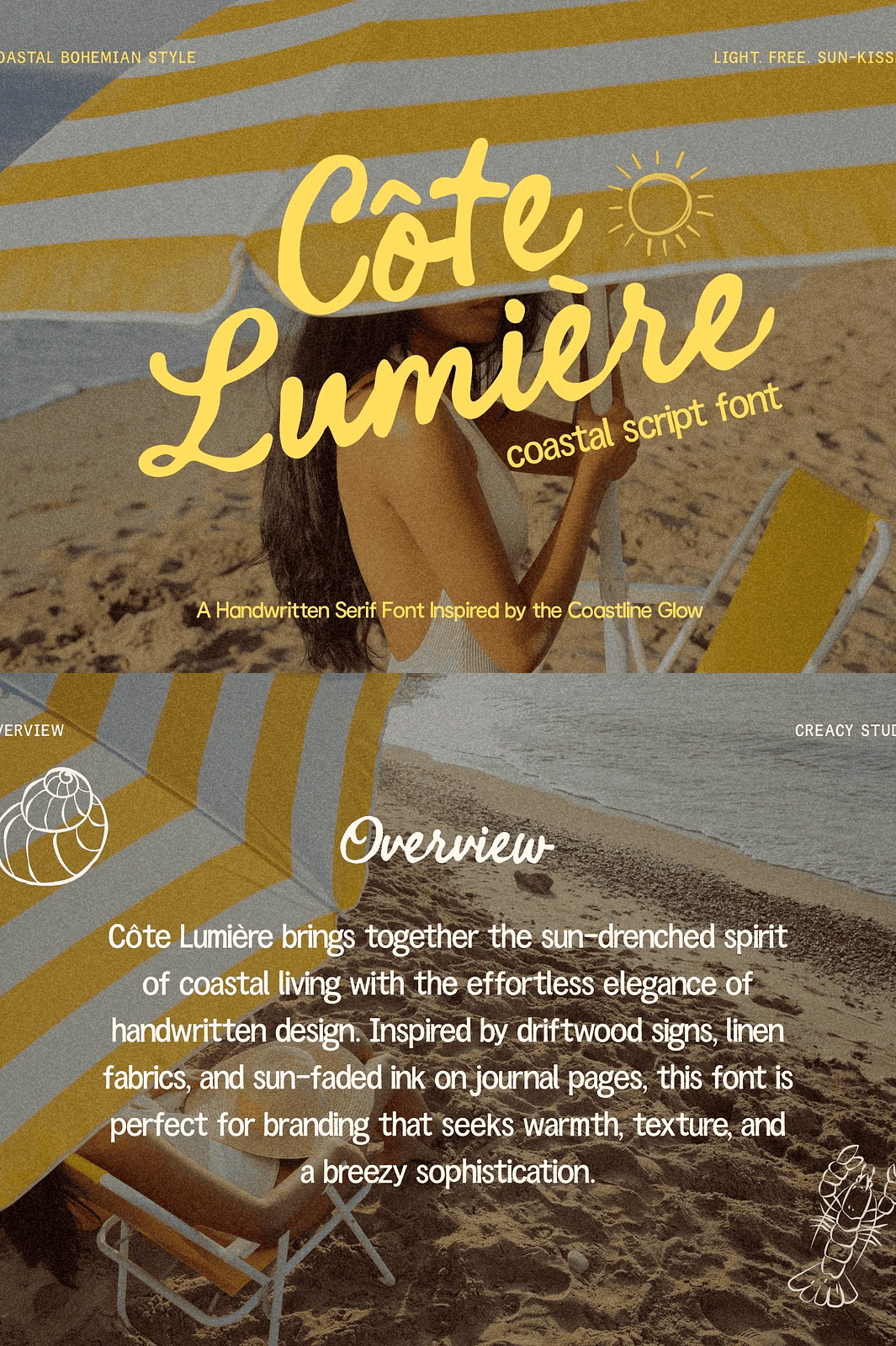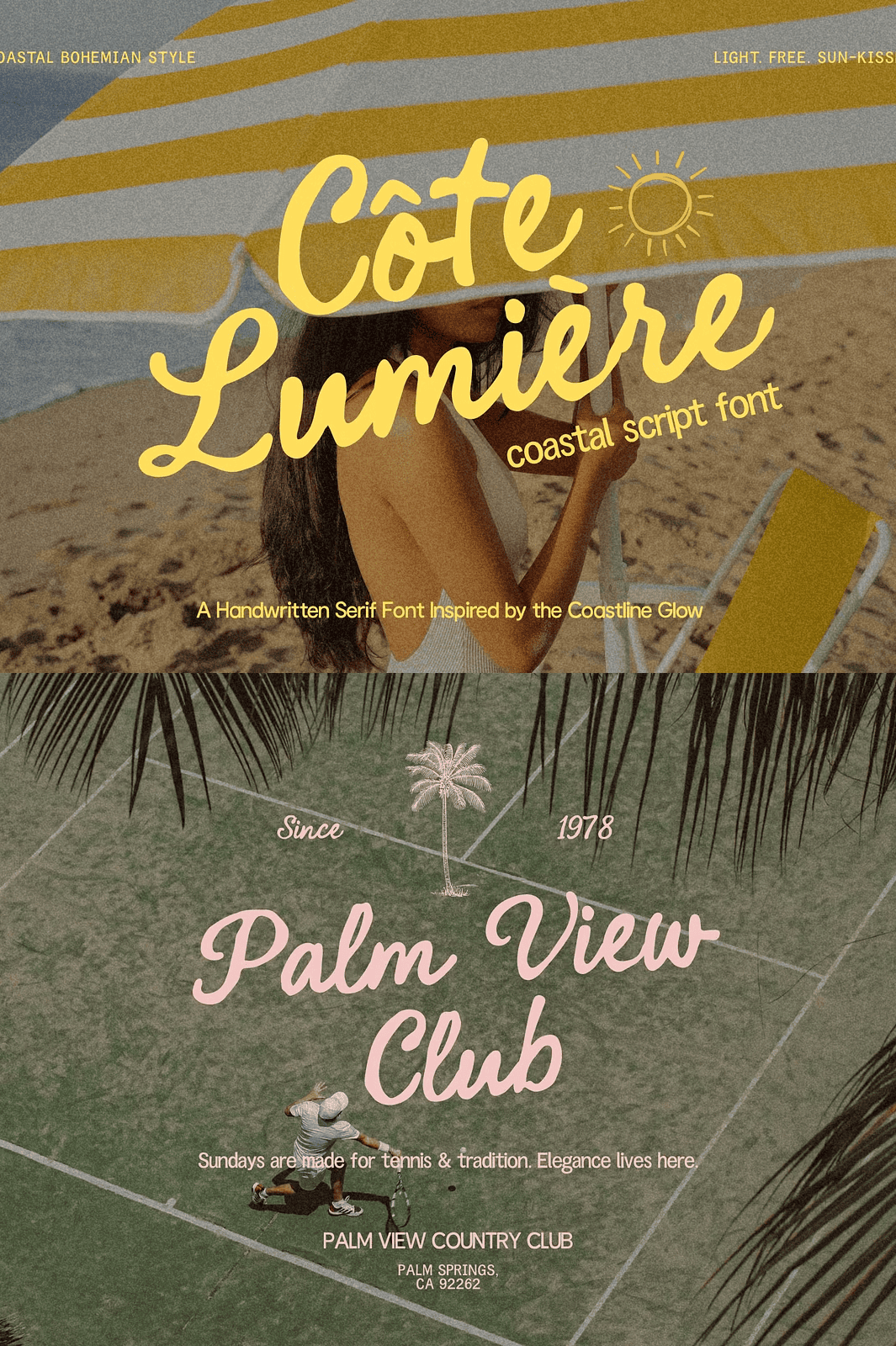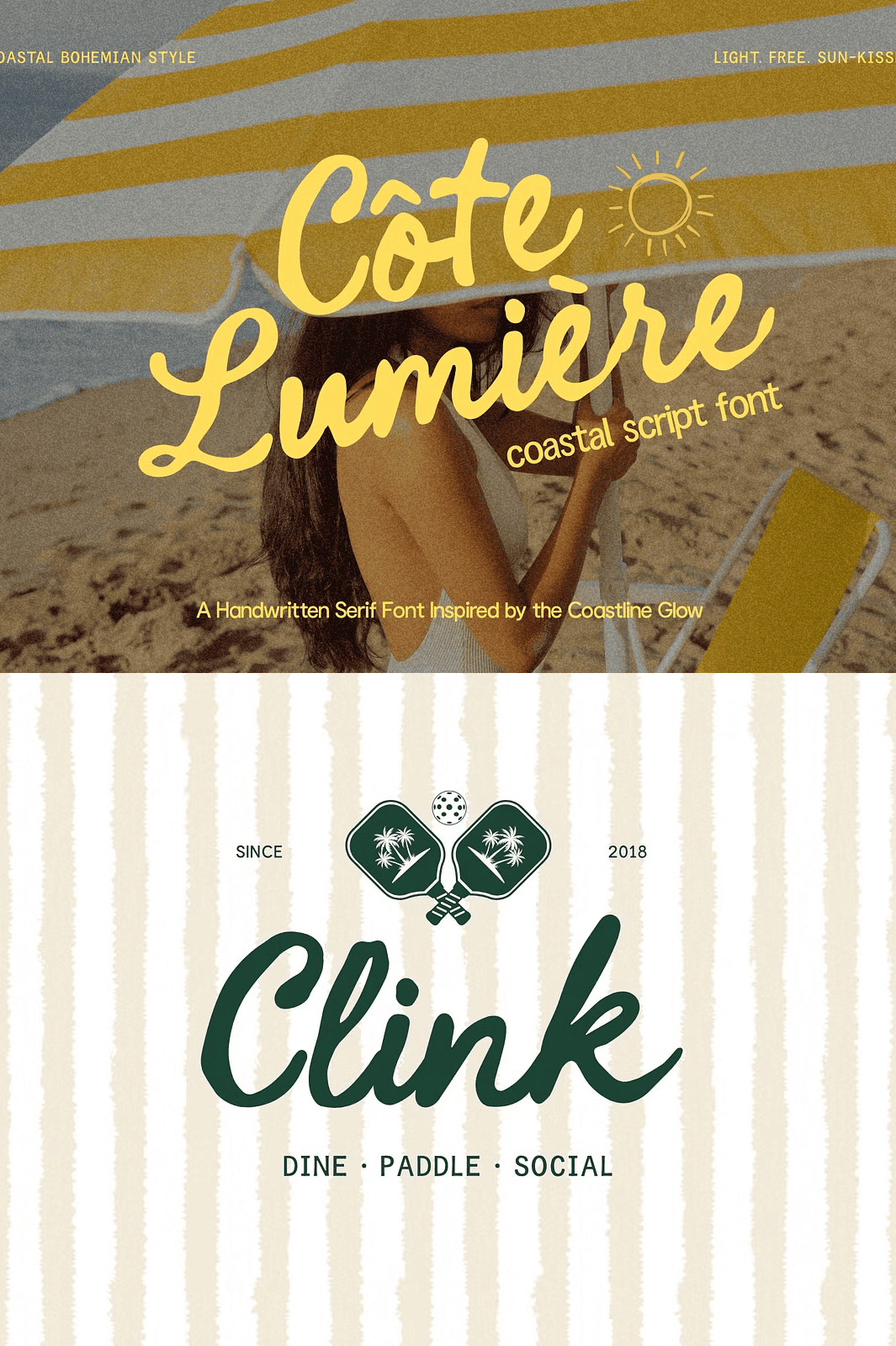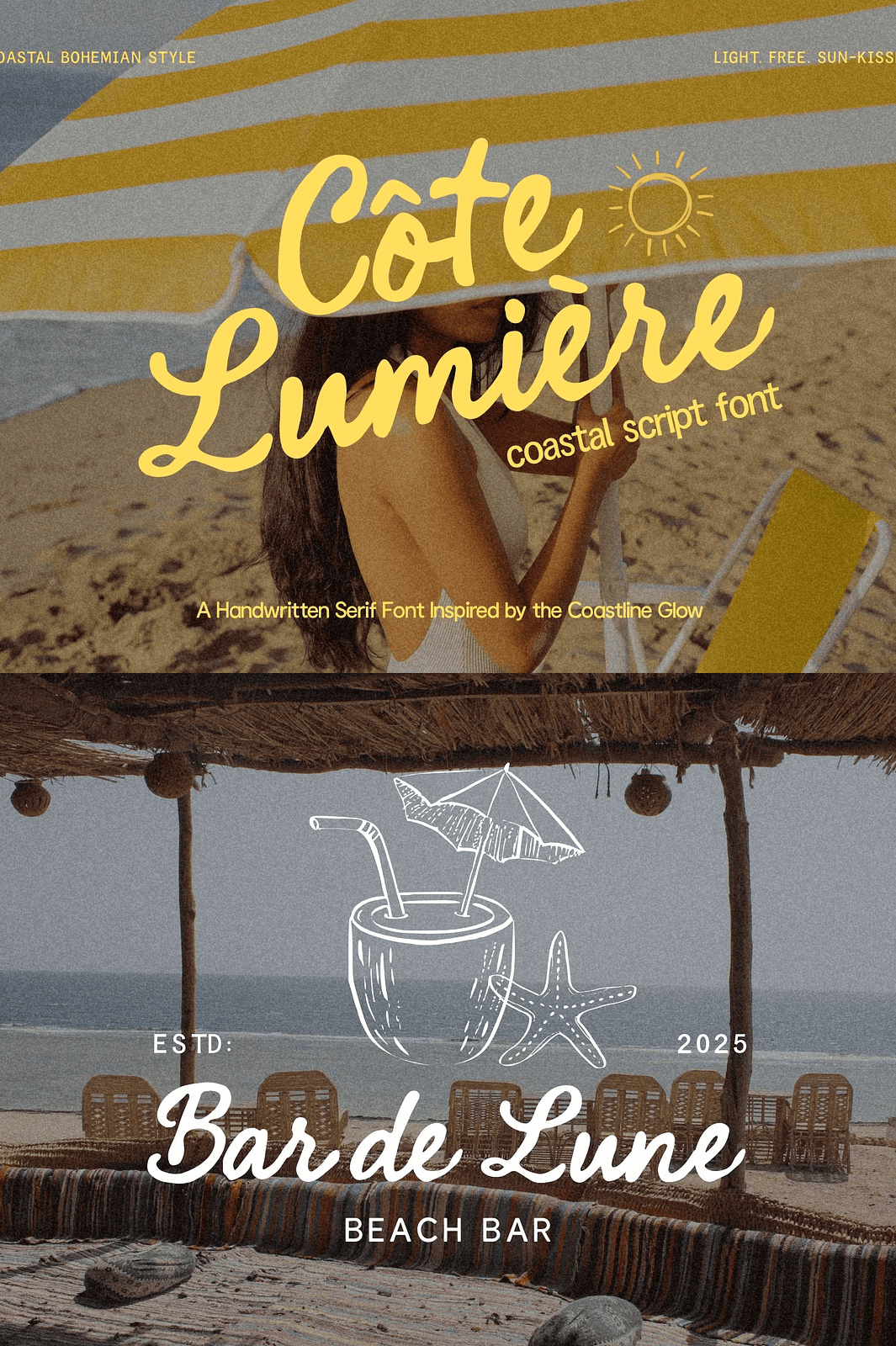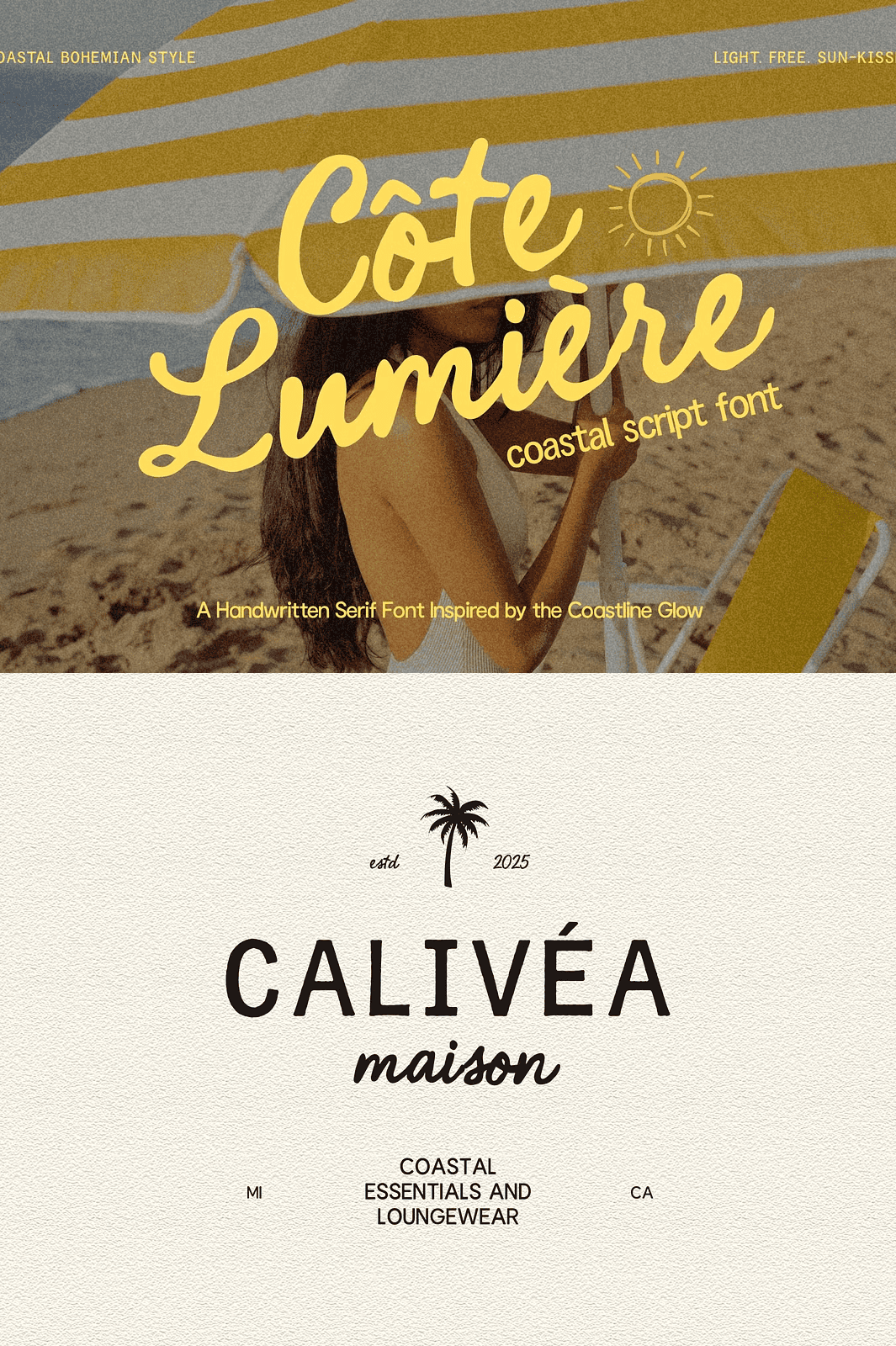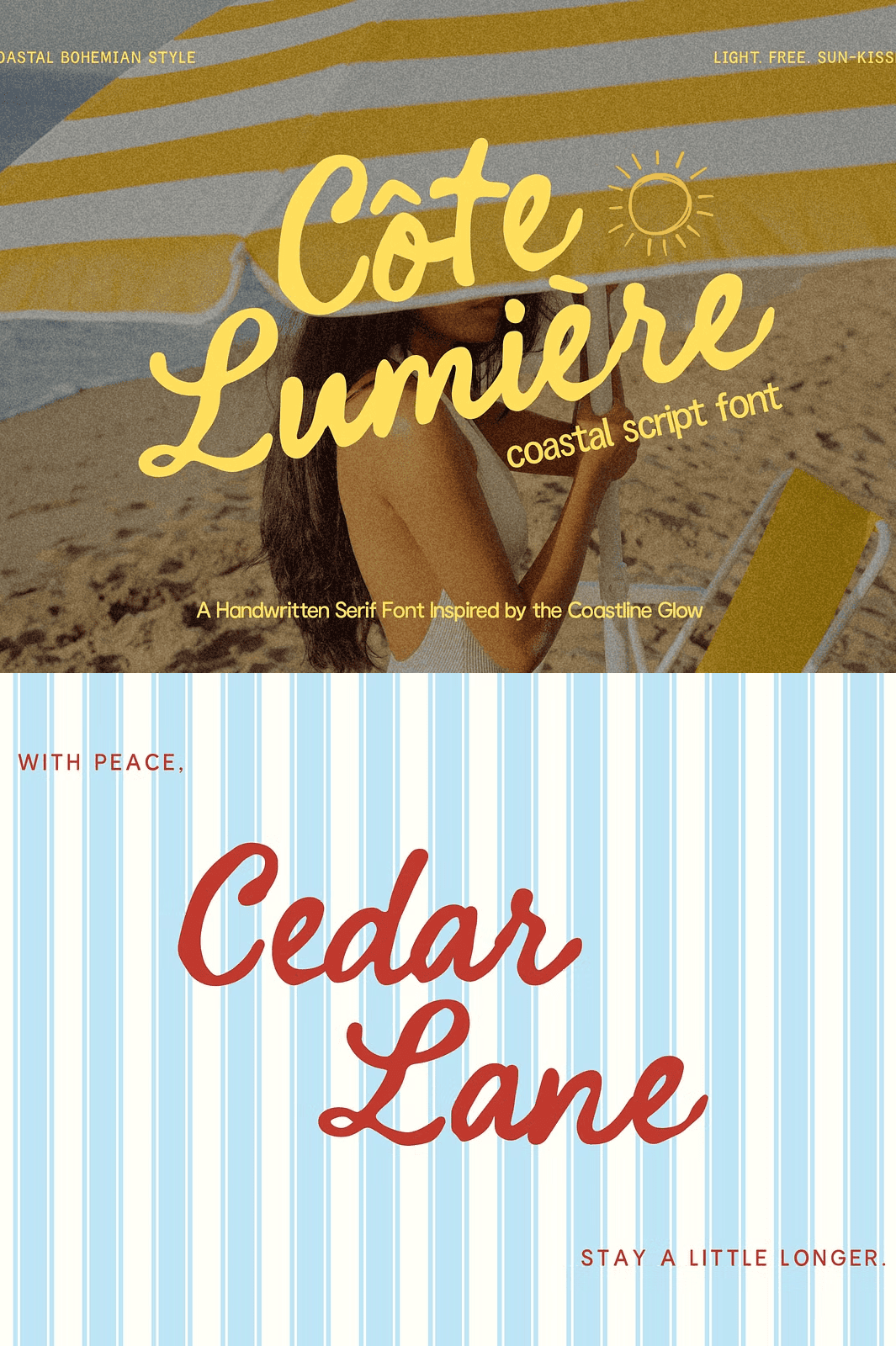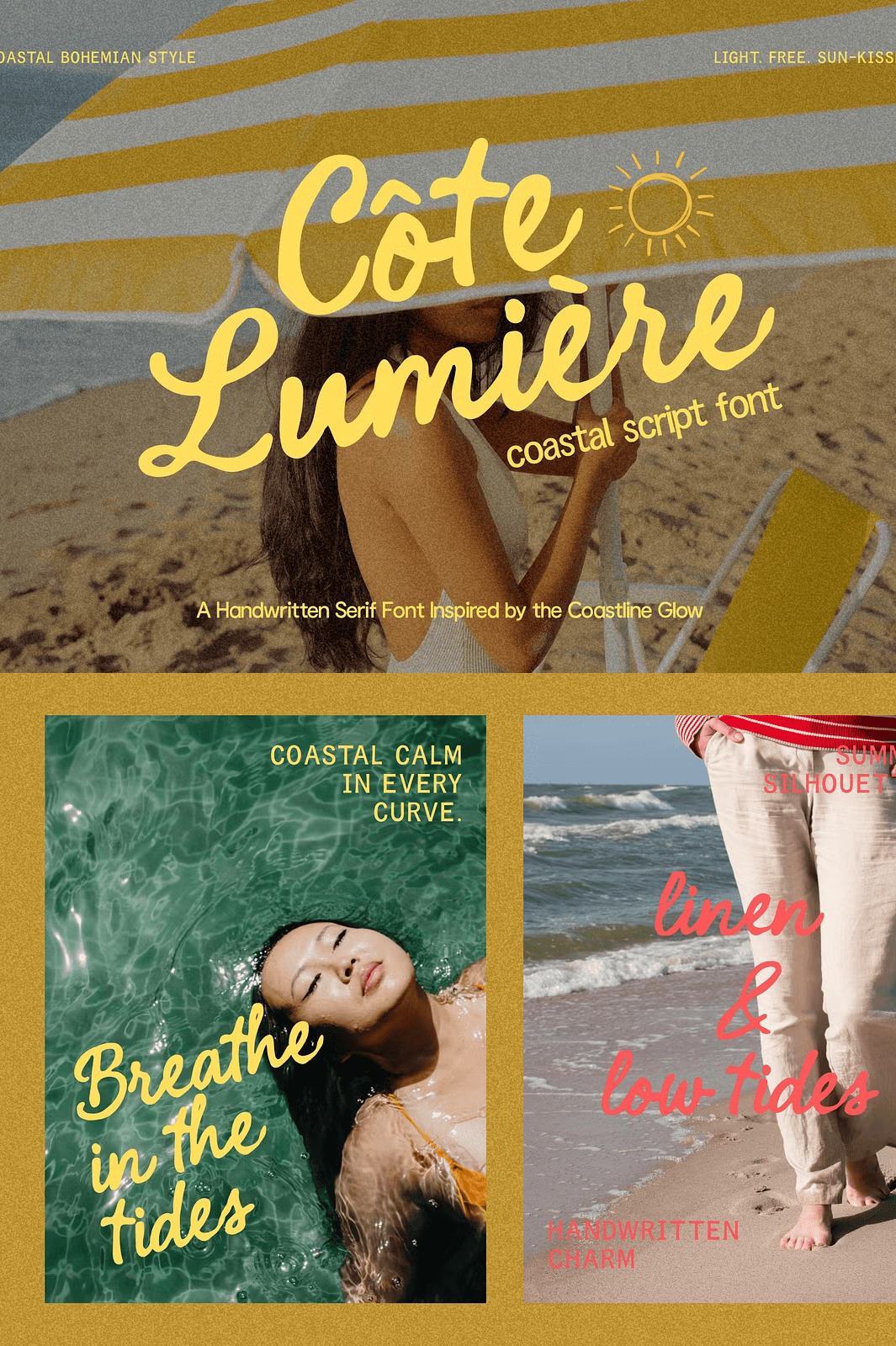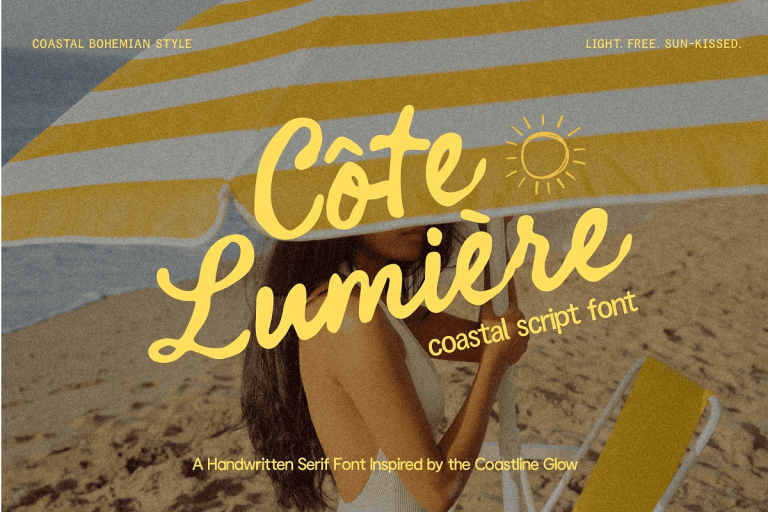
Experience the Light and Free Spirit of Coastal Bohemian Style
Côte Lumière is more than just a script font it’s an invitation to bring the sun kissed ease of seaside living into your designs. Crafted with soft, flowing curves and subtle sun-bleached strokes, this handwritten font captures the relaxed yet sophisticated vibe of coastal bohemia. Whether you’re designing branding materials, lifestyle graphics, or travel-inspired projects, Côte Lumière adds an authentic touch of warmth and texture.
Impeccable Design Features for Versatile Creativity
This font offers a comprehensive set of elements that allow you to create captivating visuals with ease:
– A full range of uppercase and lowercase script letters that flow naturally like handwriting.
– Numerals and punctuation marks for complete typographic functionality.
– Support for over 30 Latin-based languages, enabling you to reach a diverse and global audience.
Perfect Font Choice for Varied Coastal and Summer Themes
Côte Lumière shines when applied to projects and themes that evoke a breezy, sunlit ambiance:
– Branding for beach bars, coastal boutiques, and artisanal lifestyle products.
– Summer posters and packaging that demand an exclusive, elegant vibe.
– Handwritten quotes that evoke relaxation, travel, and natural beauty.
– Social media content aimed at audiences who appreciate warmth and authenticity.
Harness the Soft Glow of Côte Lumière for Your Next Design Project
Integrating Côte Lumière into your creative workflow means you’re ensuring every piece speaks of sunshine and freedom. This font’s versatile style adapts seamlessly to both print and digital media, offering you a tool to infuse your work with genuine coastal spirit and stylistic grace.
Get Ready to Light Up Your Projects with Côte Lumière
Bring the carefree elegance of coastal living straight to your artistic expression. Whether for branding, marketing, or personal creative use, this font ensures every word you write exudes a soft glow of sunshine and relaxed sophistication.